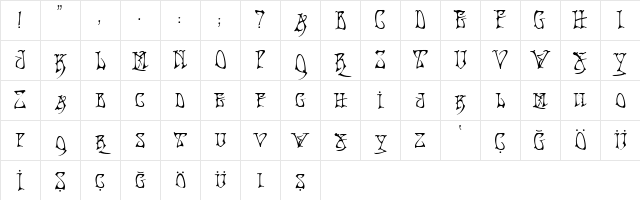
BadAcid TR Regular
Design Context for BadAcid TR
BadAcid TR is a composed and adaptable typeface that performs quietly and consistently across a wide range of design contexts.